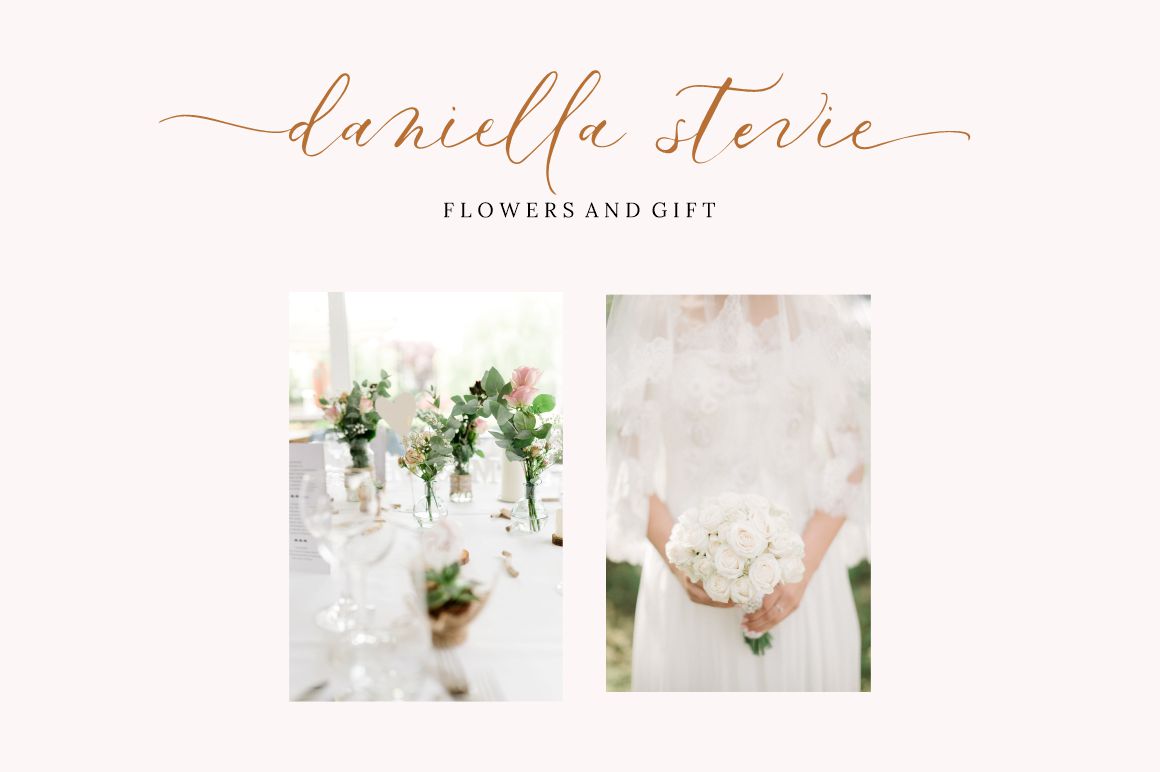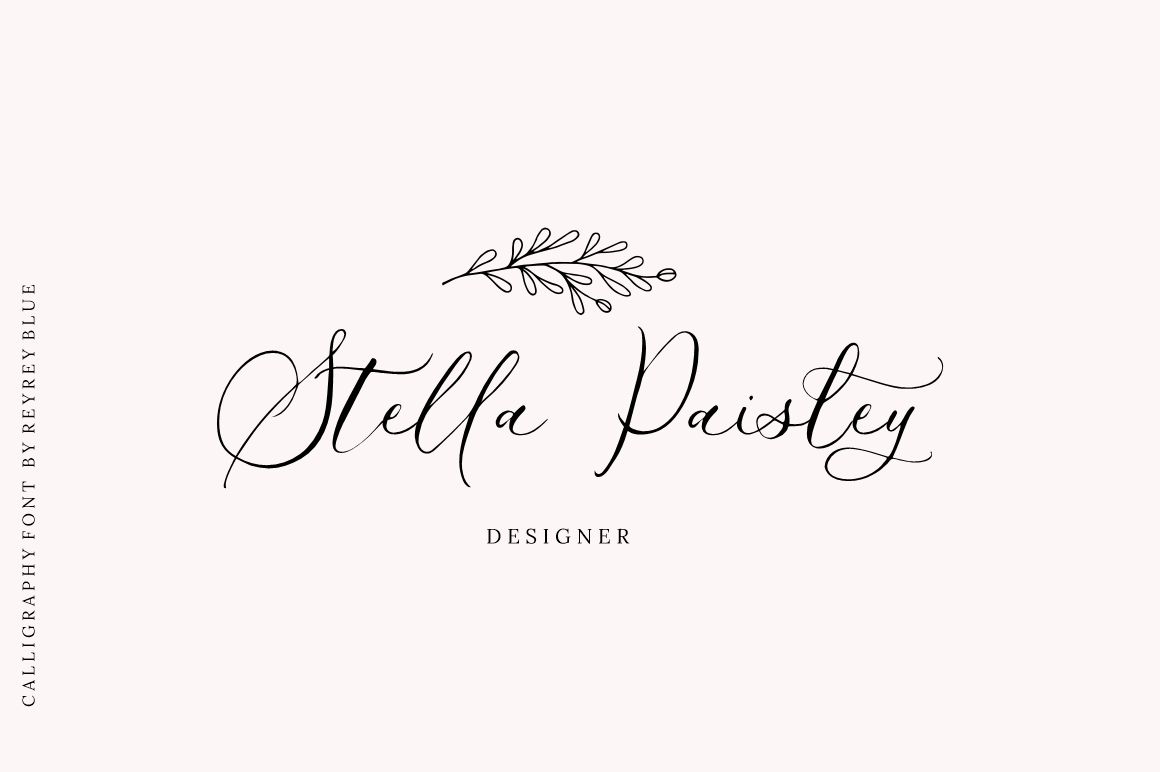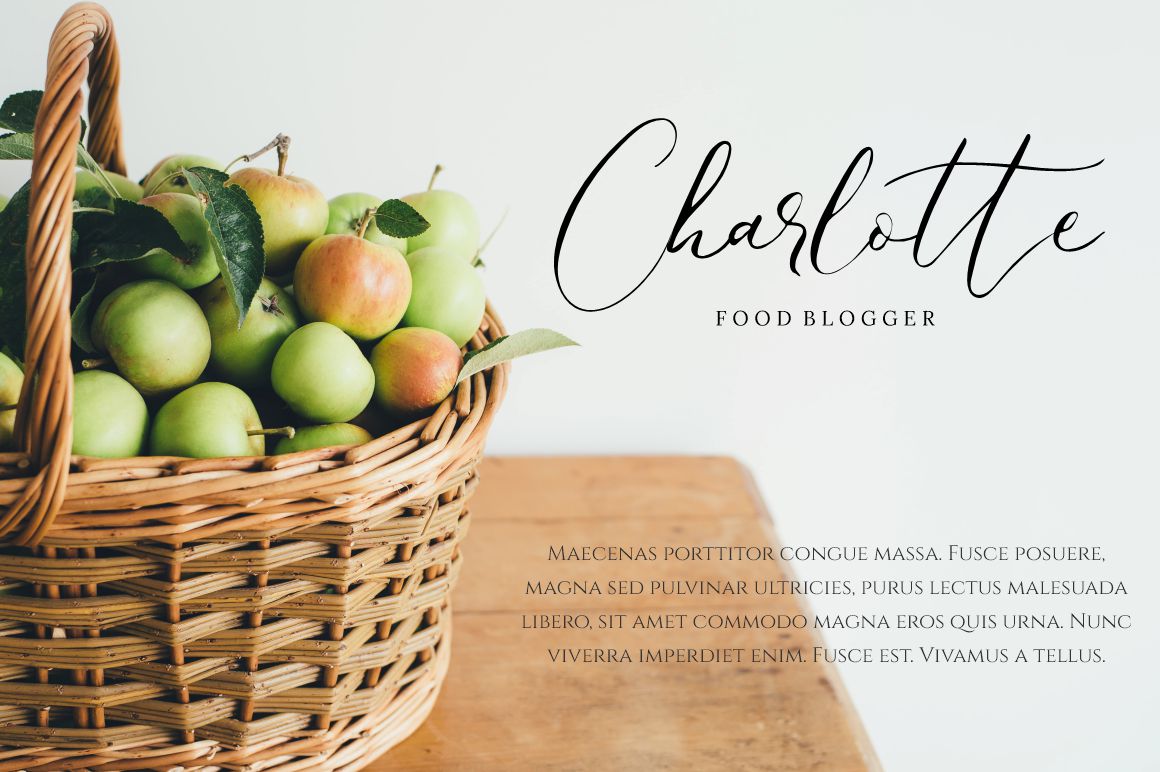
Le Vangeline Script Font
It’s a romantic calligraphy font, with classic root and elegant touch. It is perfect for any projects such as : logos, branding projects, homeware designs, product packaging, mugs, quotes, posters, shopping bags, t-shirts, book covers, name card, invitation cards, greeting cards, label, photography, watermark, special events, and all your other lovely projects that need a beautiful script taste.
Add it to your most creative ideas and notice how it makes them come alive!